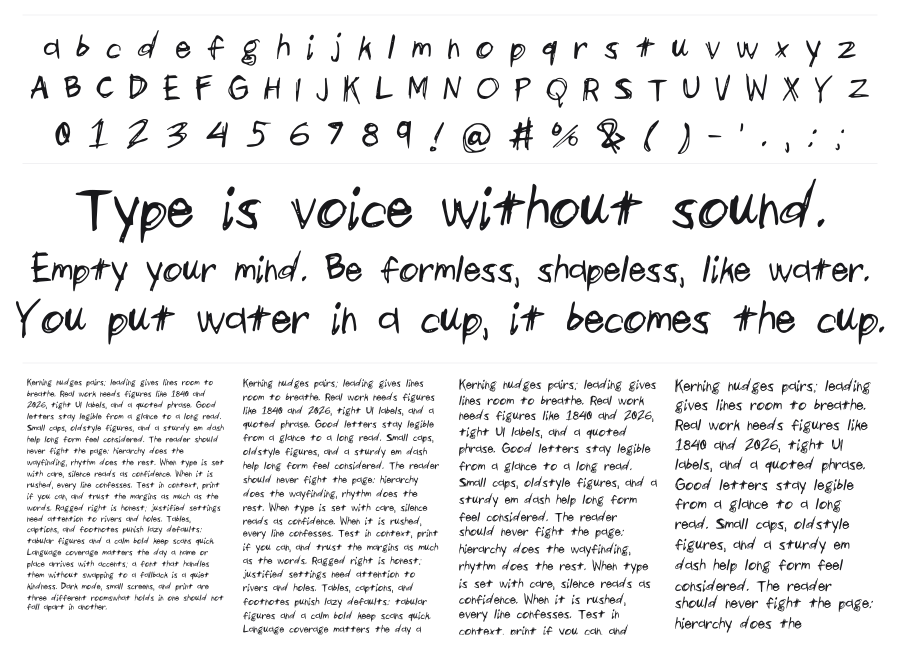
Scribbles and Giggles
by Kelsey Ann G
Scribbles and Giggles is a hand-drawn font that looks like it was written with a felt-tip pen by someone having a very good time. The irregular baseline, wobbly strokes, and rough texture give it an authentic, unscripted energy. It works best at large sizes where that looseness reads as personality rather than noise.